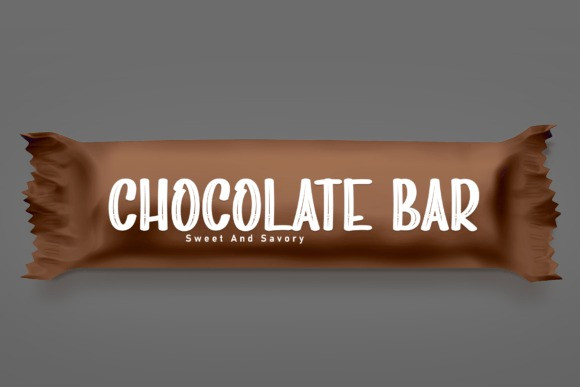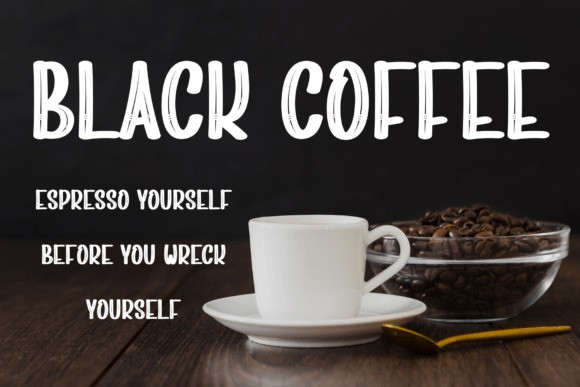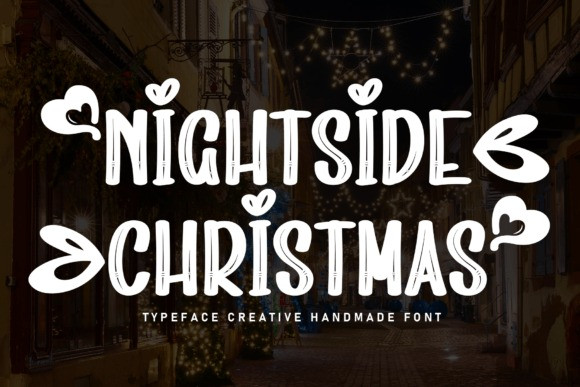
Nightside Christmas Font
Nightside Christmas Font is a whimsical display font that infuses holiday cheer with a touch of romance. Each letter is adorned with delicate hearts, adding a festive and warm vibe to your text. Perfect for creating joyful and love-filled designs during the festive season.